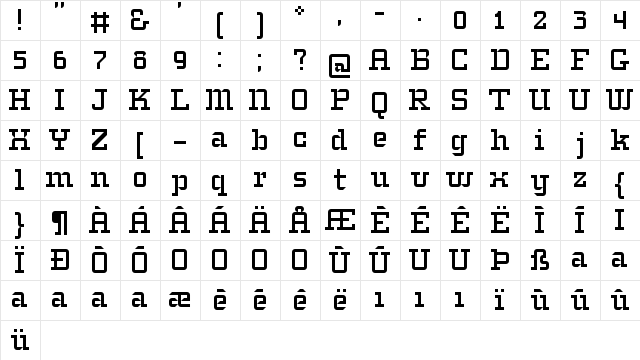
SlabStruct Too Regular
Design Context for SlabStruct Too Typeface
SlabStruct Too features prominent, blocky serifs that give it a confident, grounded presence — equally at home in editorial settings and bold branding work.
Suited to magazines, political campaign materials, bold packaging, and any setting where authority matters.
Pro Tip: Use SlabStruct Too for headlines and subheadings where its slab serifs can make an impression. It also holds up well in mid-size body copy thanks to its sturdy construction.